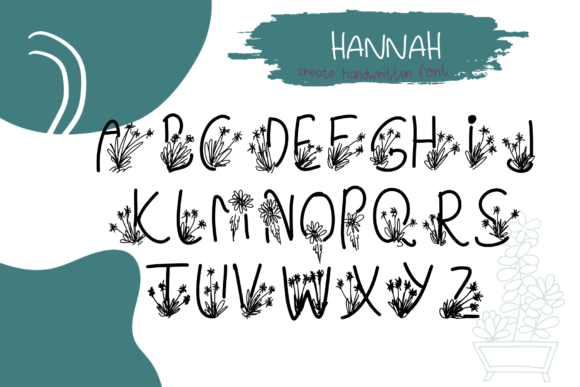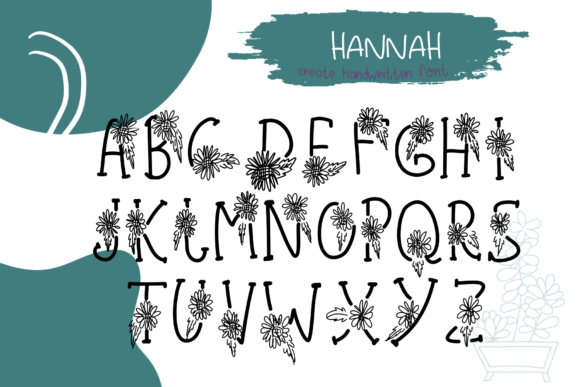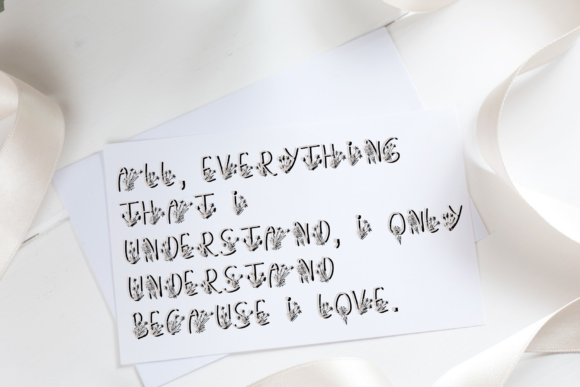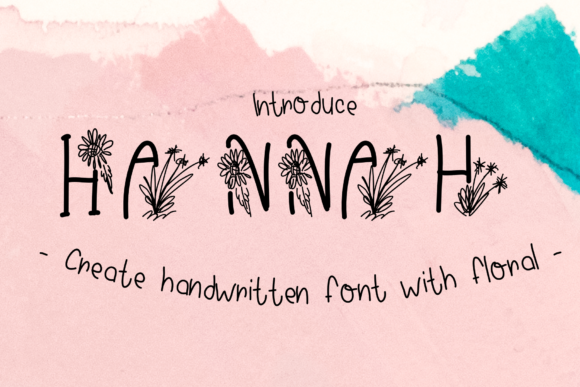
Hannah Font: The Cute and Delicate Decorative Font for Your Creative Projects
Are you a designer or crafter looking for a unique and lovely font to add a touch of elegance to your creative projects? Look no further than the Hannah Font! This adorable decorative font features little wreaths as ornaments, making it perfect for a variety of design applications. In this article, we’ll explore the Hannah Font in more detail, discussing its features, uses, and why it’s a great addition to your font collection.
What is Hannah Font?
Hannah Font is a decorative font that boasts a cute and delicate style. Its unique feature is the use of little wreaths as ornaments, which adds a touch of whimsy and charm to any design. The font is perfect for designers and crafters who want to create beautiful and eye-catching projects that stand out from the crowd.
Features of Hannah Font
The Hannah Font has several features that make it a great choice for designers and crafters. Some of its key features include:
- Unique and Lovely Style: The Hannah Font has a distinctive and charming style that is sure to capture the hearts of designers and crafters. Its delicate and intricate design makes it perfect for a variety of creative projects.
- Little Wreaths as Ornaments: The font features little wreaths as ornaments, which add a touch of elegance and sophistication to any design.
- Decorative and Versatile: The Hannah Font is a decorative font that can be used for a variety of design applications, including invitations, greeting cards, posters, and more.
Uses of Hannah Font
The Hannah Font is a versatile font that can be used for a variety of creative projects. Some of the most popular uses of the font include:
- Wedding Invitations: The Hannah Font is perfect for wedding invitations, adding a touch of elegance and sophistication to your wedding stationery.
- Greeting Cards: The font can be used to create beautiful and eye-catching greeting cards for special occasions, such as birthdays, anniversaries, and holidays.
- Posters and Flyers: The Hannah Font can be used to create stunning posters and flyers for events, promotions, and more.
- Branding and Packaging: The font can be used for branding and packaging design, adding a touch of whimsy and charm to your brand’s identity.
Why Choose Hannah Font?
There are many reasons why you should choose the Hannah Font for your creative projects. Some of the benefits of using the font include:
- Unique and Eye-Catching: The Hannah Font is a unique and eye-catching font that is sure to capture the attention of your audience.
- High-Quality Design: The Hannah Font is designed with high-quality and attention to detail, ensuring that your designs look professional and polished.
In conclusion, the Hannah Font is a cute and delicate decorative font that is perfect for designers and crafters who want to add a touch of elegance and whimsy to their creative projects. Its unique and lovely style, featuring little wreaths as ornaments, makes it a great addition to any font collection. With its versatility and ease of use, the Hannah Font is sure to become a favorite among designers and crafters.